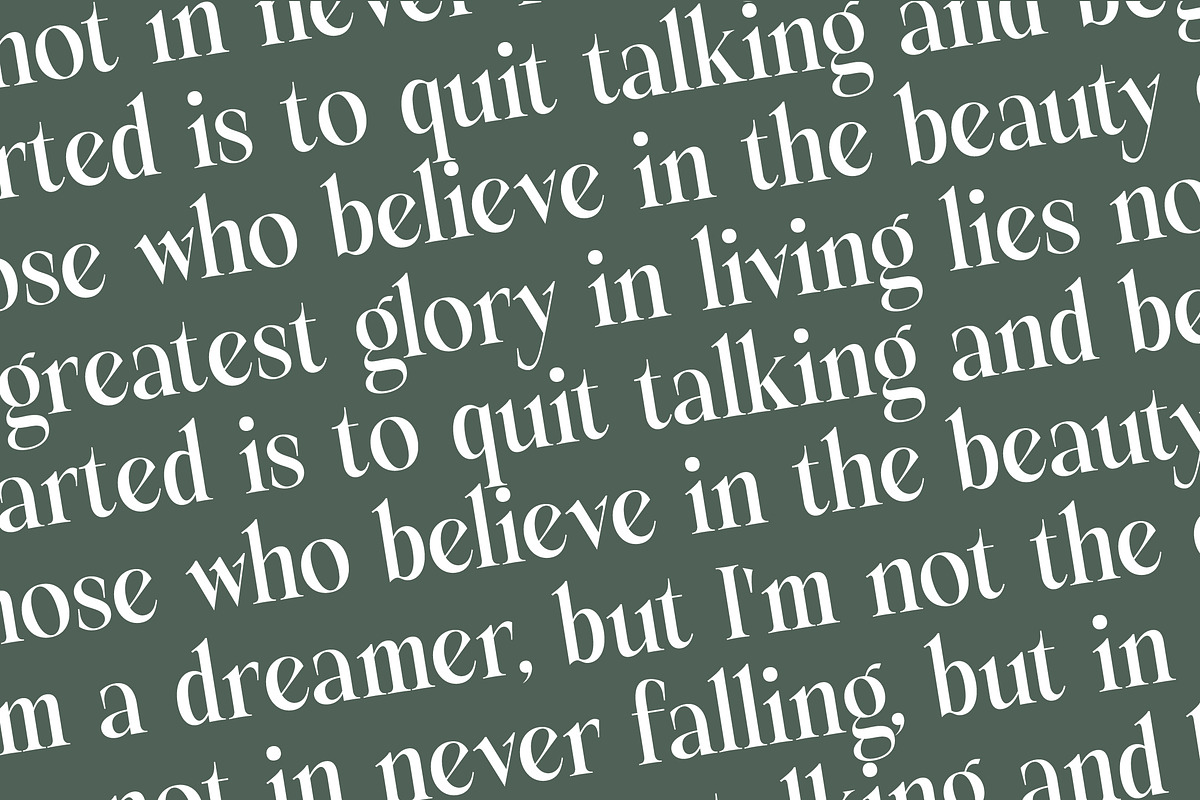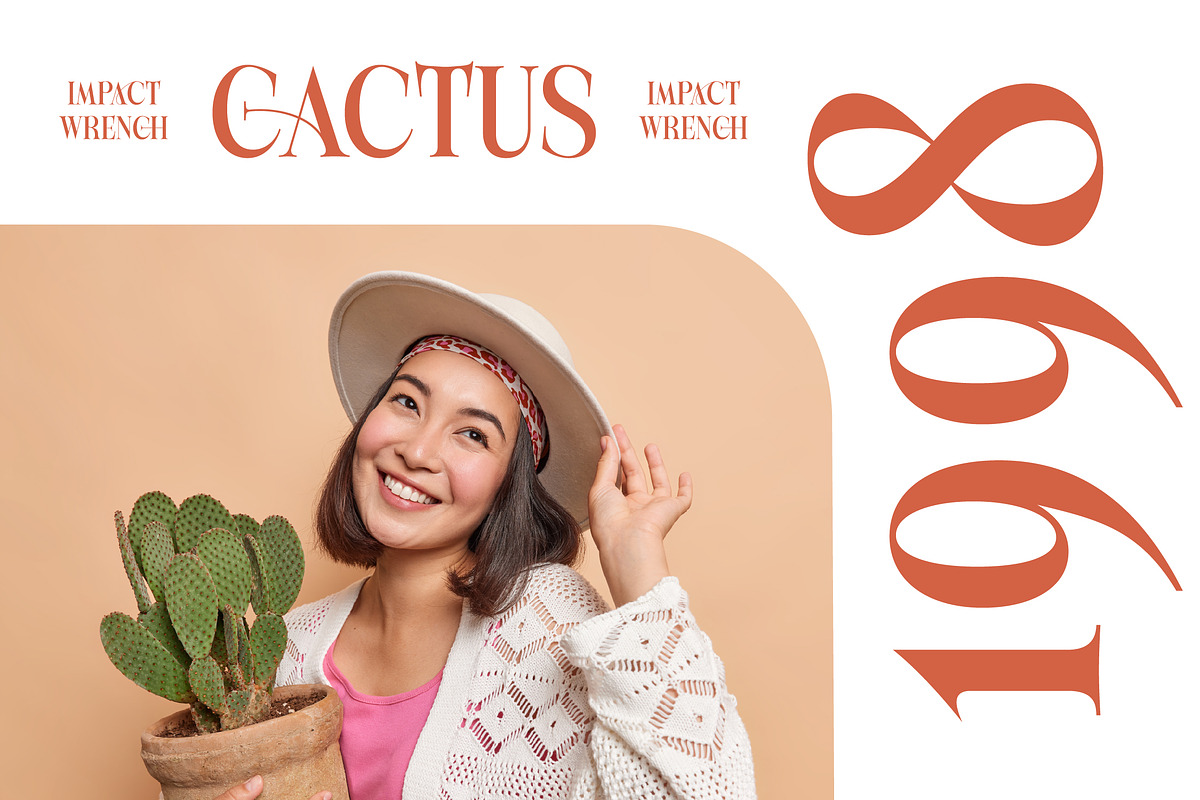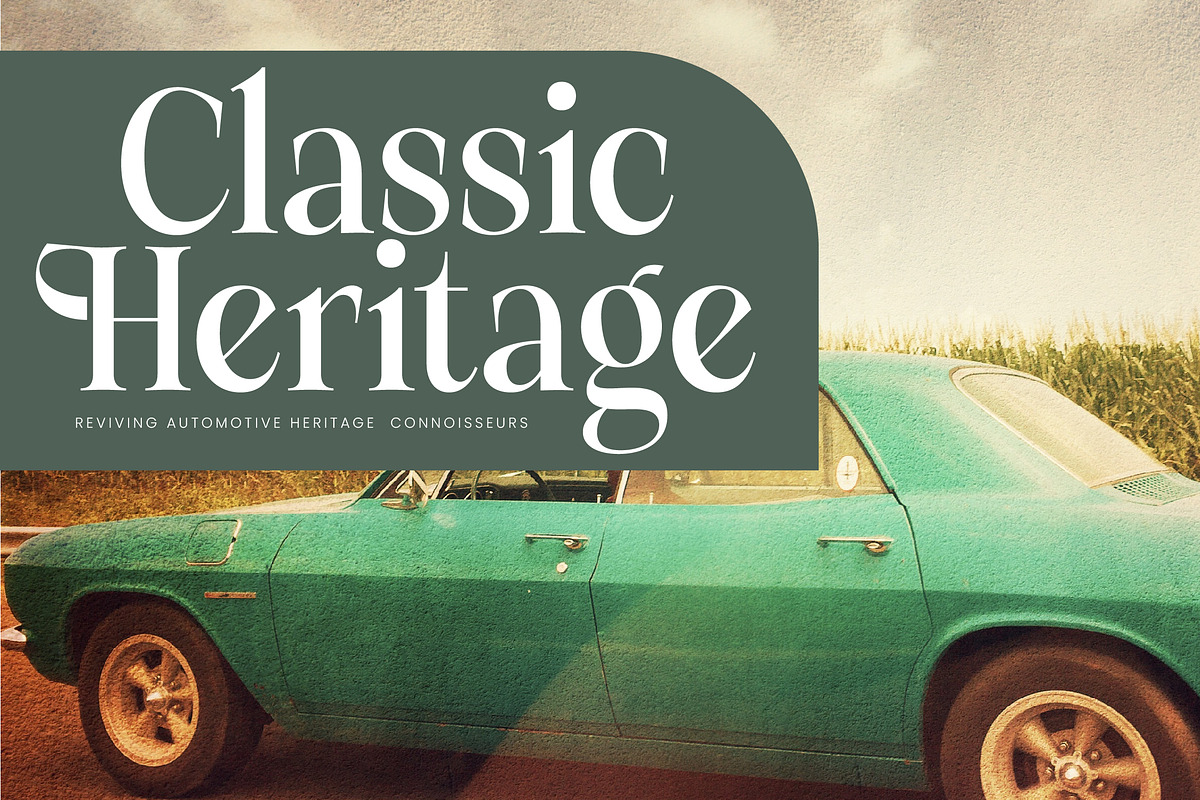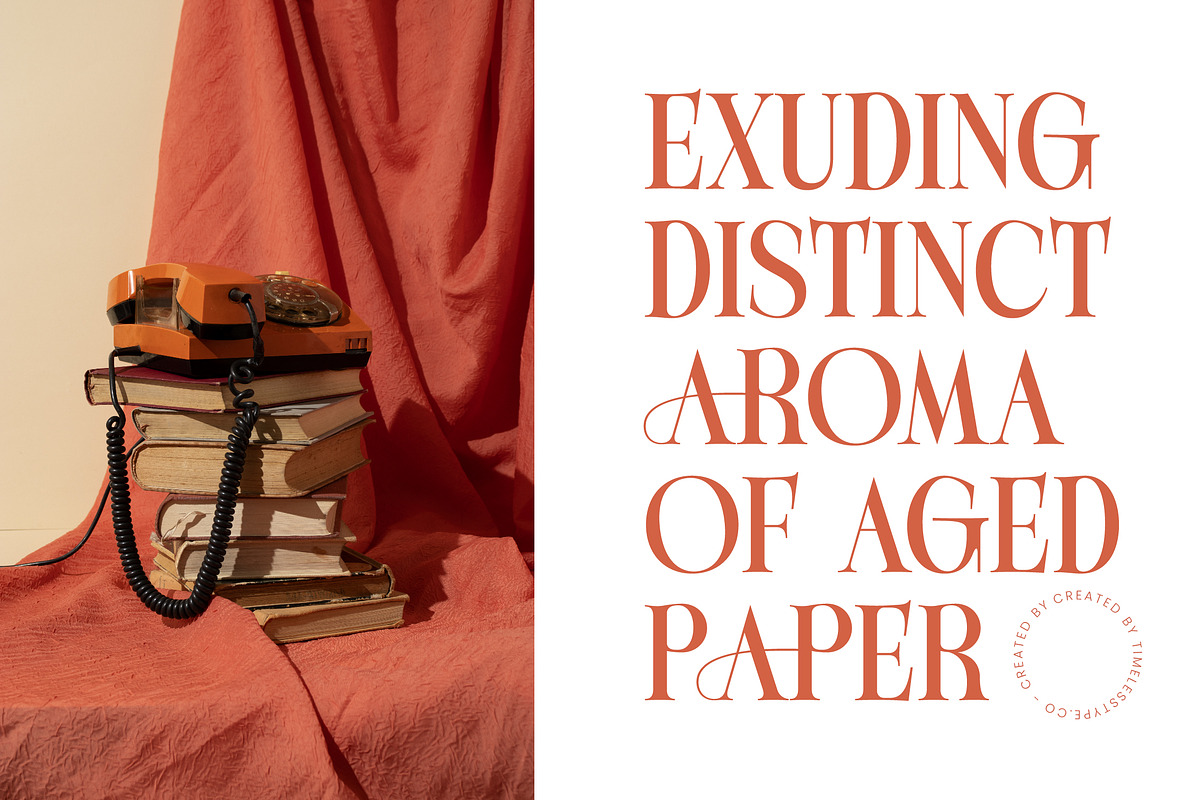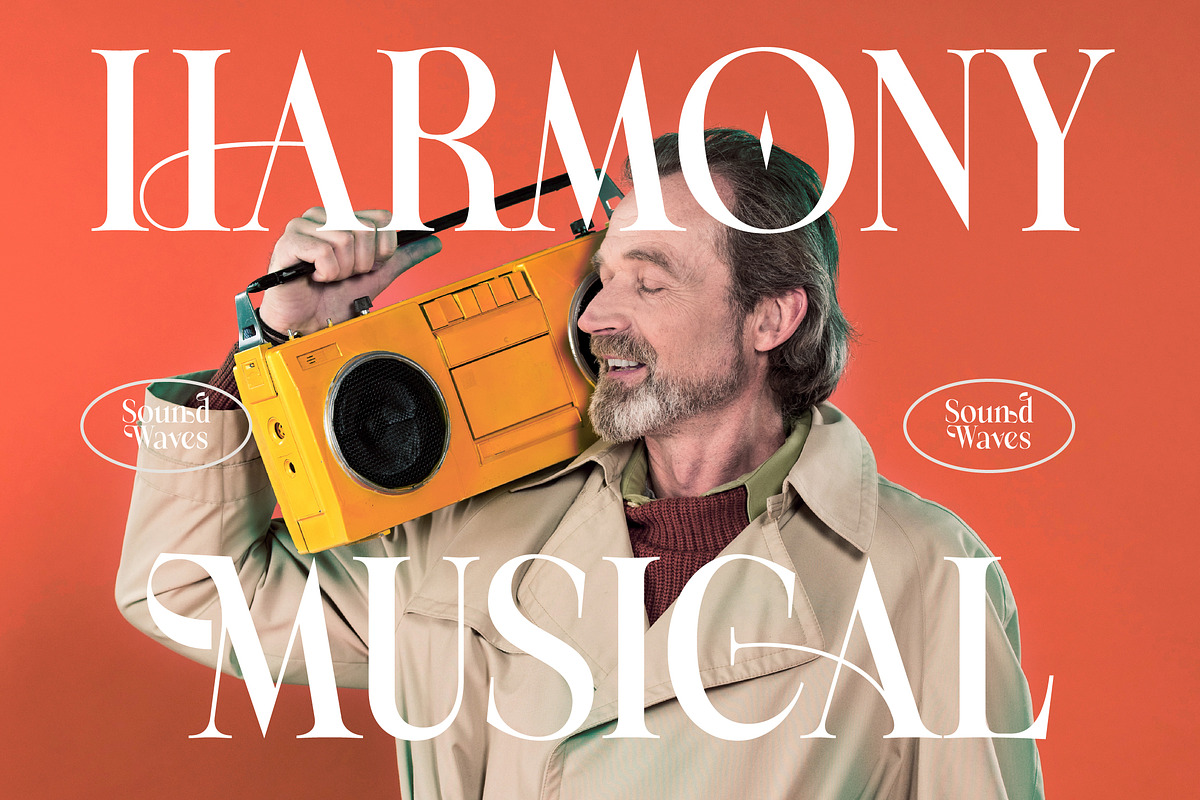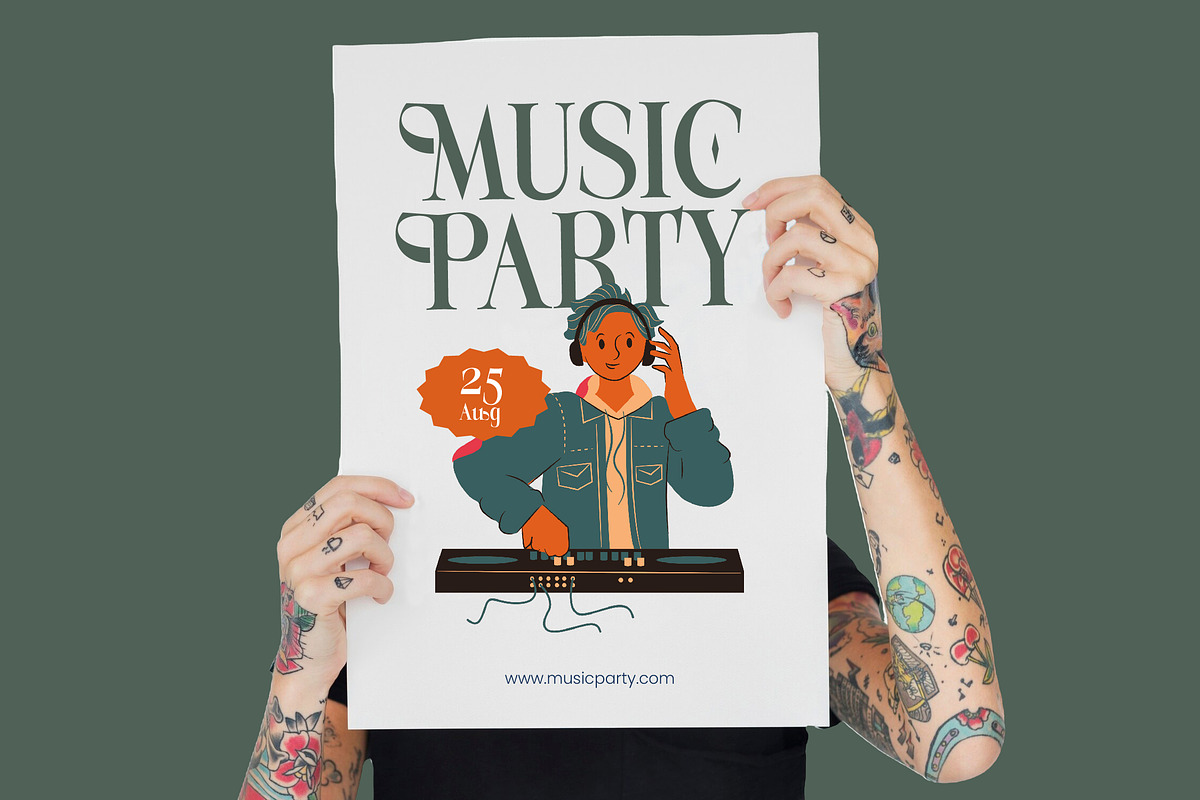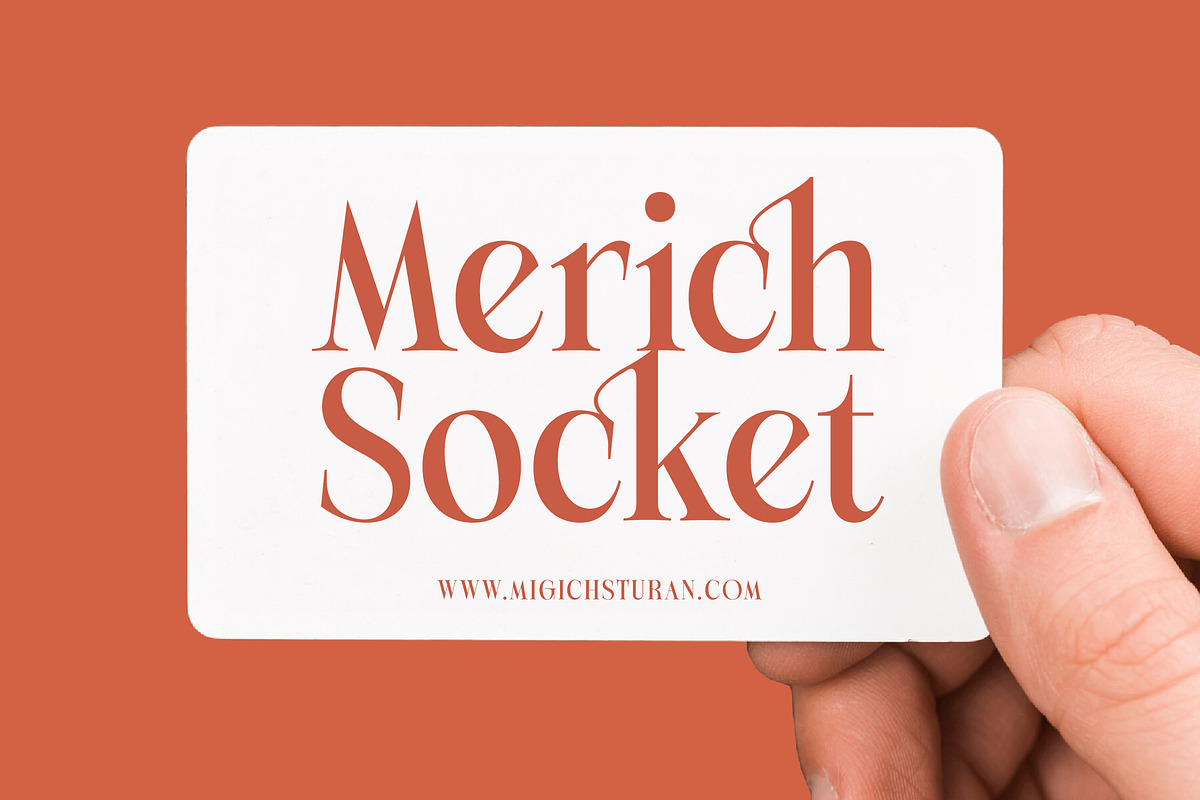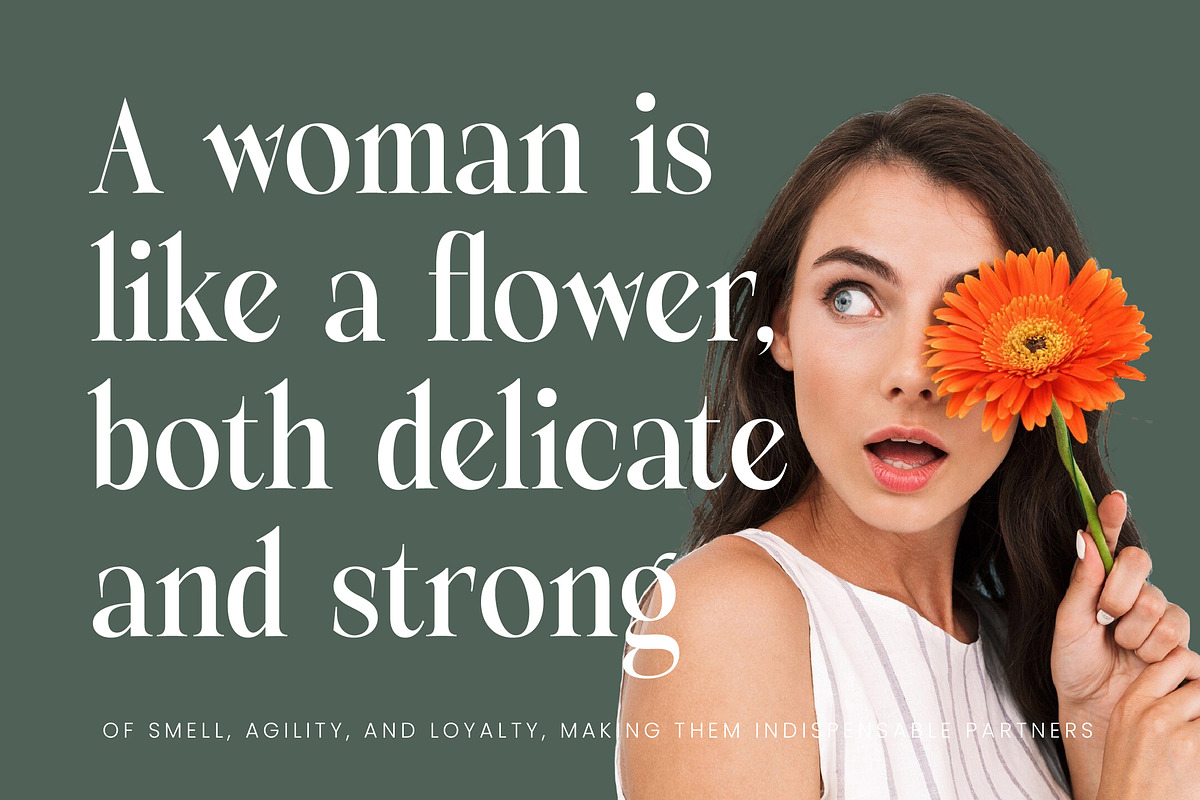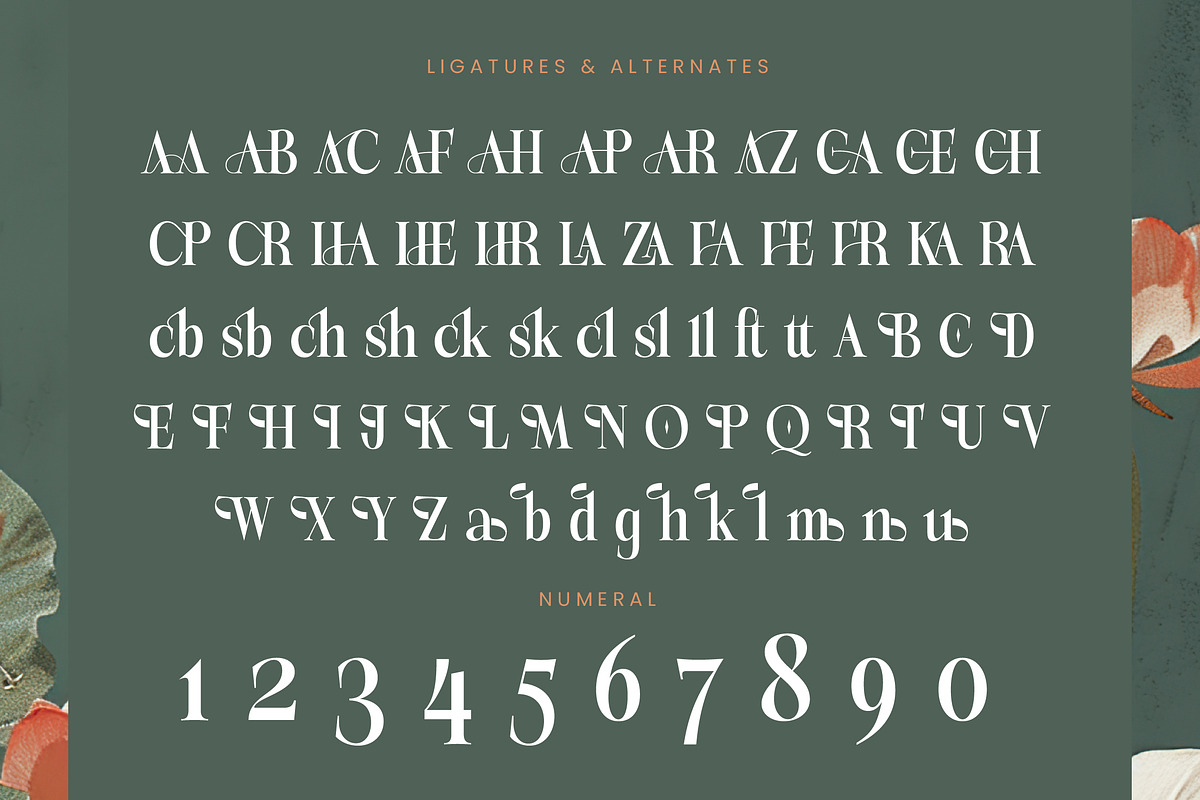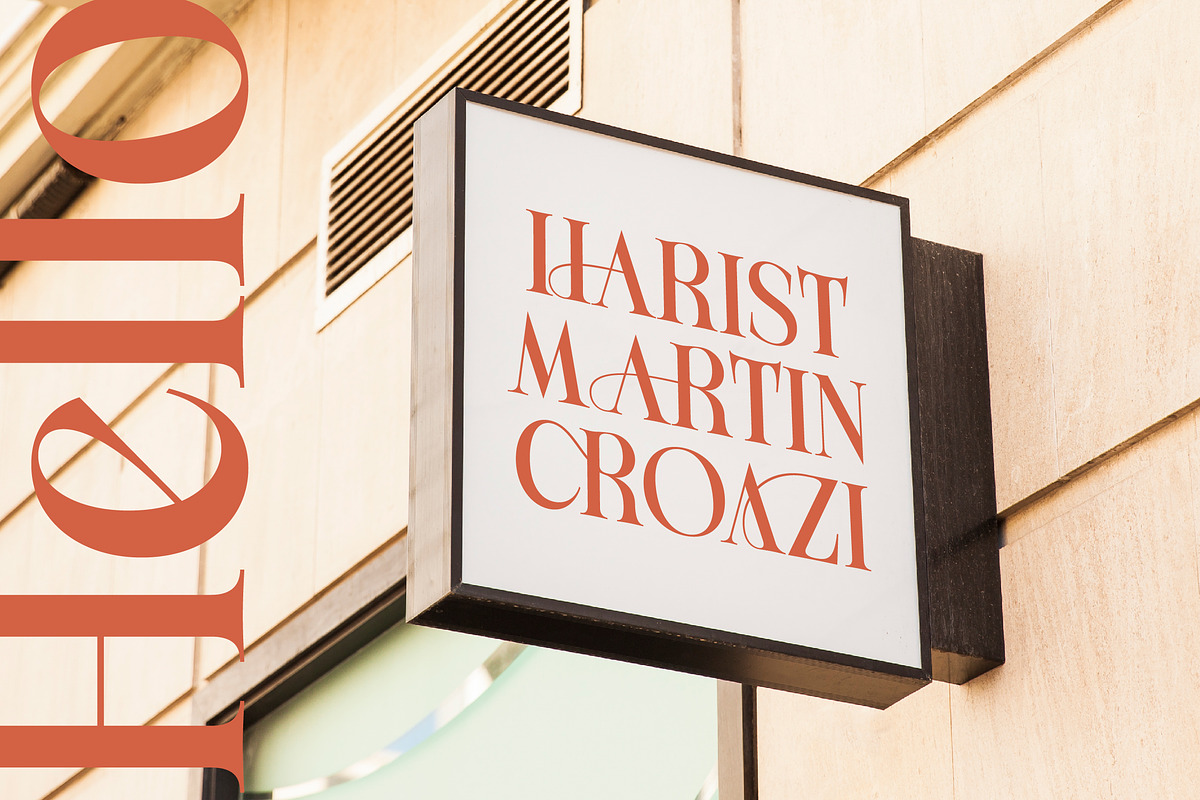
Michela Azorha Display Serif
Elevate your visual narrative with the exquisite charm of Michela Azorha, a font designed to command attention with its timeless grace. This typeface serves as a bridge between classic sophistication and contemporary flair, perfect for creators who demand excellence.
Drawing inspiration from the delicate curves of blooming flora and the structured elegance of high-fashion editorials, this font captures a serene yet powerful atmosphere. Its design evokes the feeling of a sun-drenched garden or a boutique luxury atelier, where every detail is meticulously crafted.
With its striking silhouette and refined edges, this modern serif display offers an unparalleled luxury typography experience. The high-contrast serif strokes provide a rhythmic flow that ensures a significant branding impact, making it the definitive editorial font for projects that require a touch of prestige.
Perfectly aligned with the current modern serif trend, this typeface brings a fresh perspective to the world of editorial display fonts. It embraces character-driven typography by offering a wide array of stylistic choices that allow designers to stay ahead of the curve in a fast-paced creative market.
This versatile typeface is an ideal choice for high-end logo design and comprehensive branding identity systems. Whether you are working on a premium packaging concept, a minimalist editorial layout, or a romantic wedding invitation, it delivers the aesthetic required for the fashion and lifestyle industries.
This comprehensive package is packed with professional features including 38 unique ligatures and 34 stylistic alternates to help you customize every word. It also boasts extensive multilingual support and international characters, along with artistic swashes that provide endless creative possibilities for global design projects.
- Ligature 34 Alternate 38